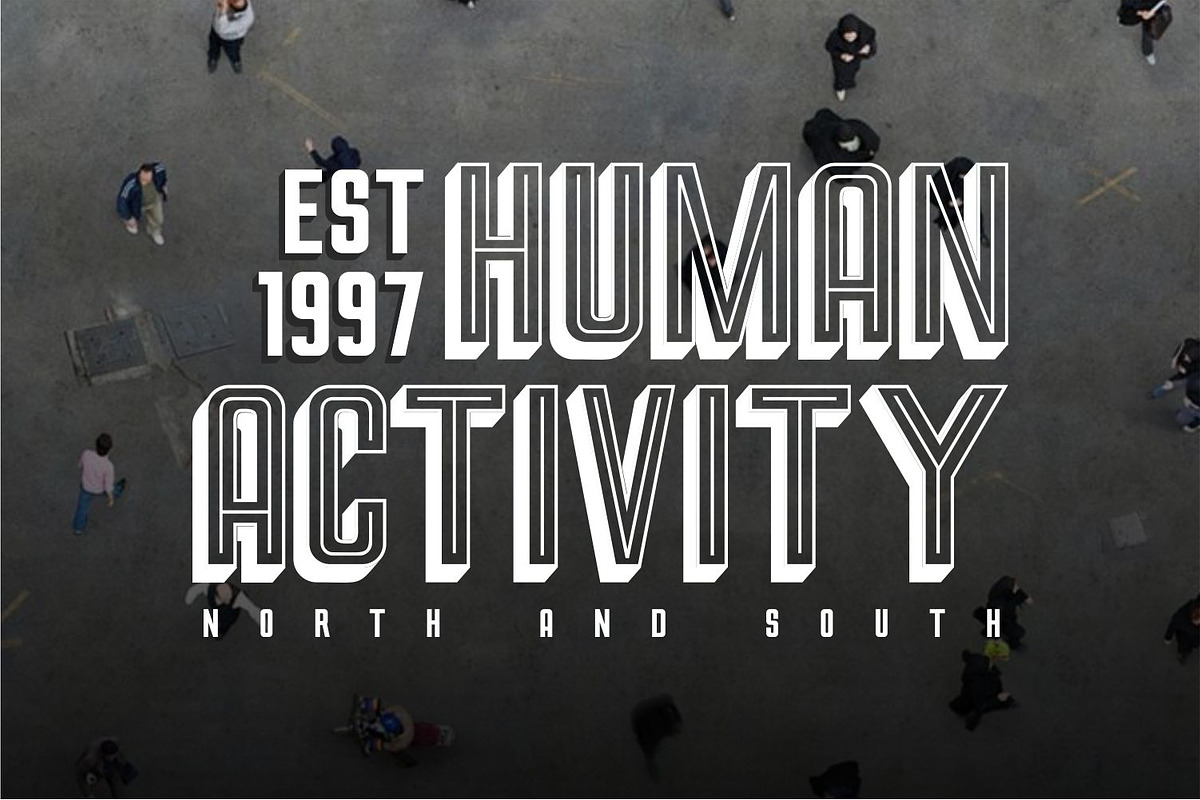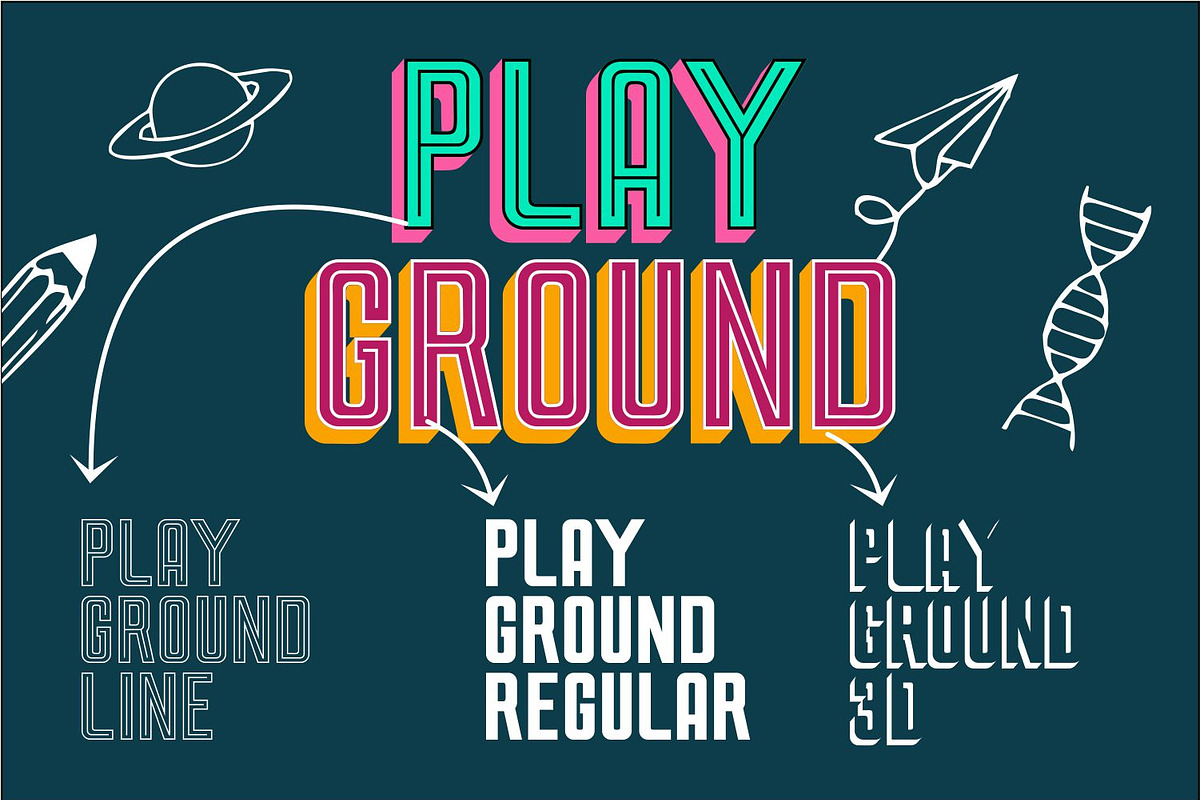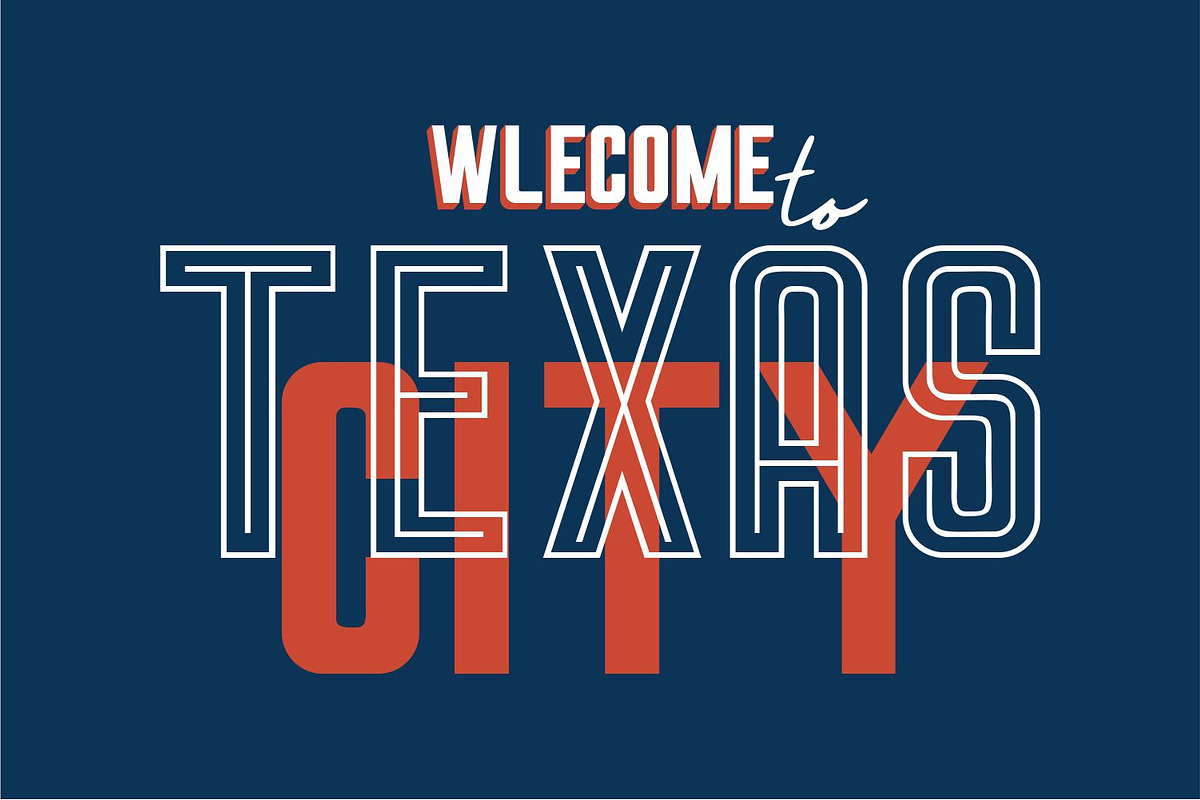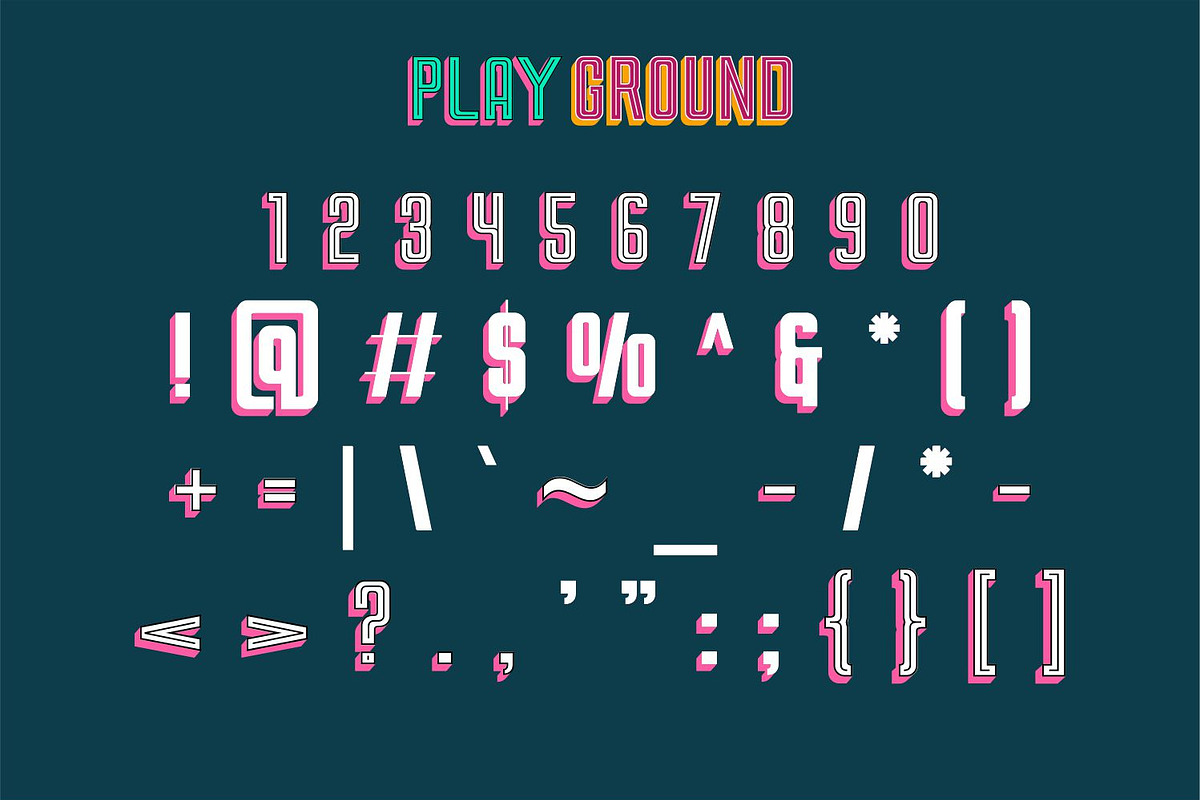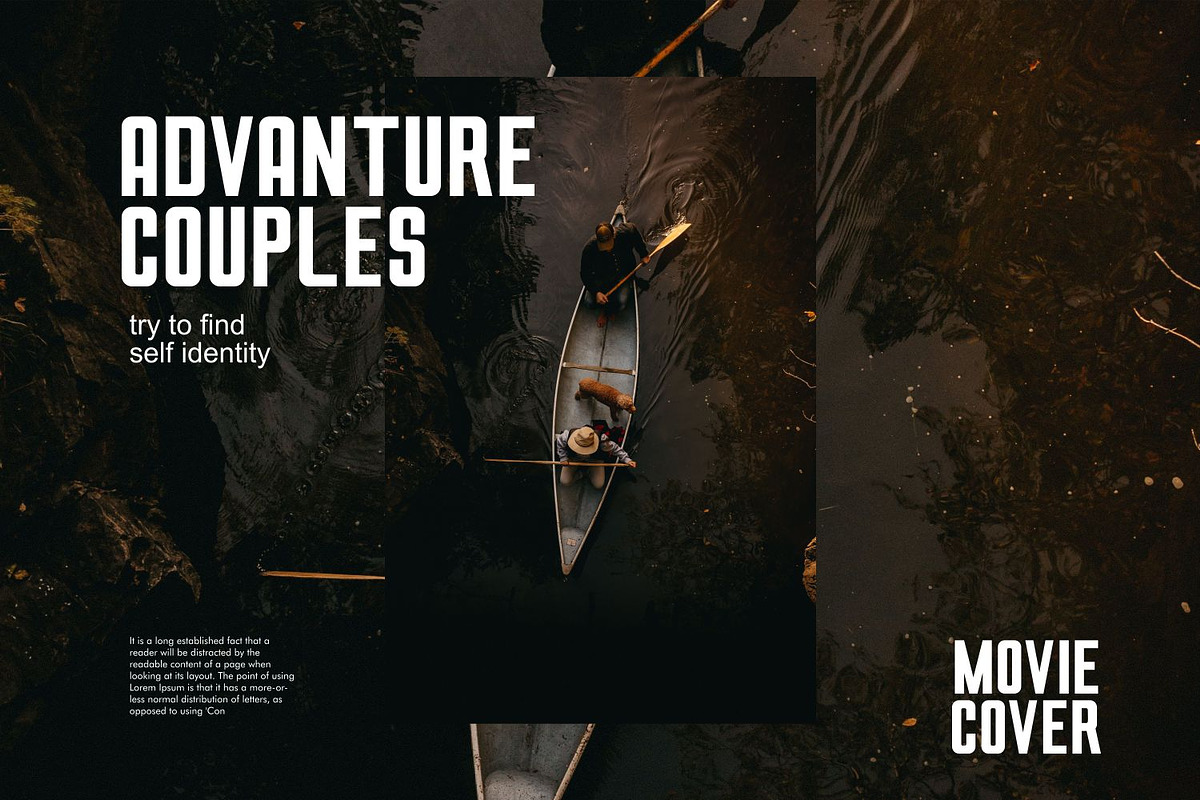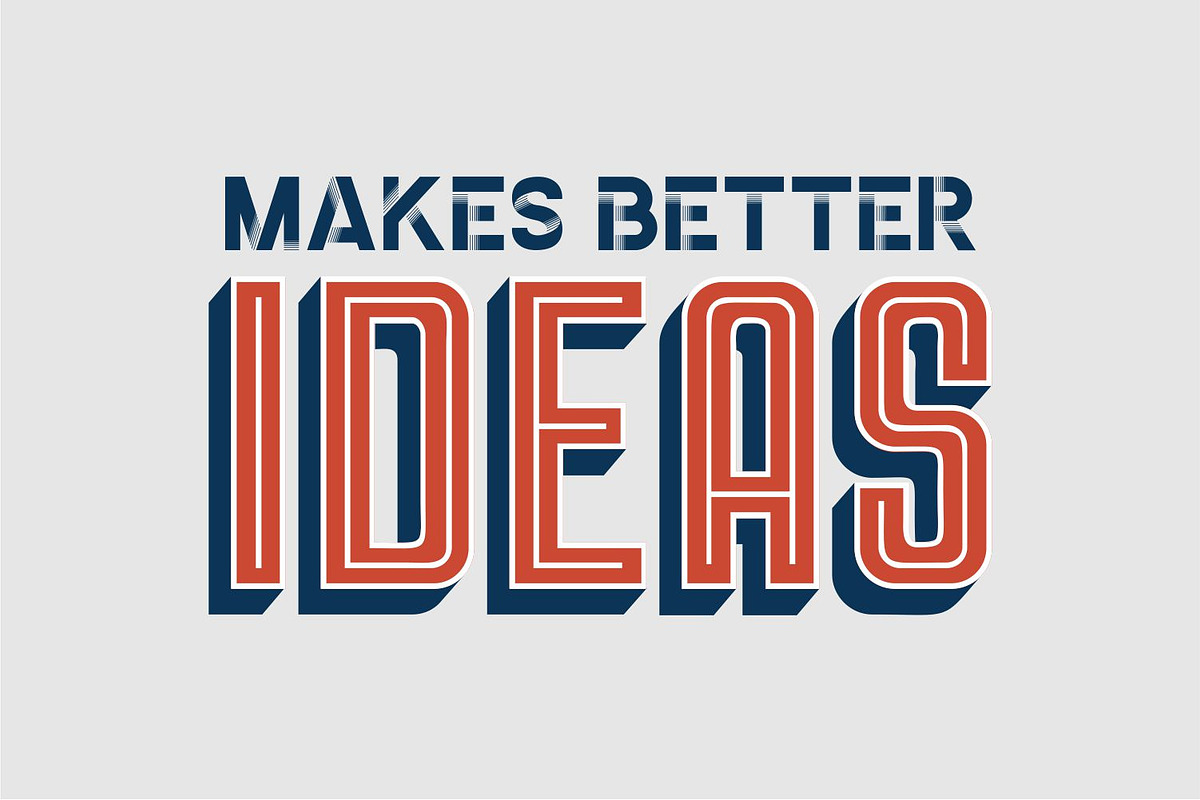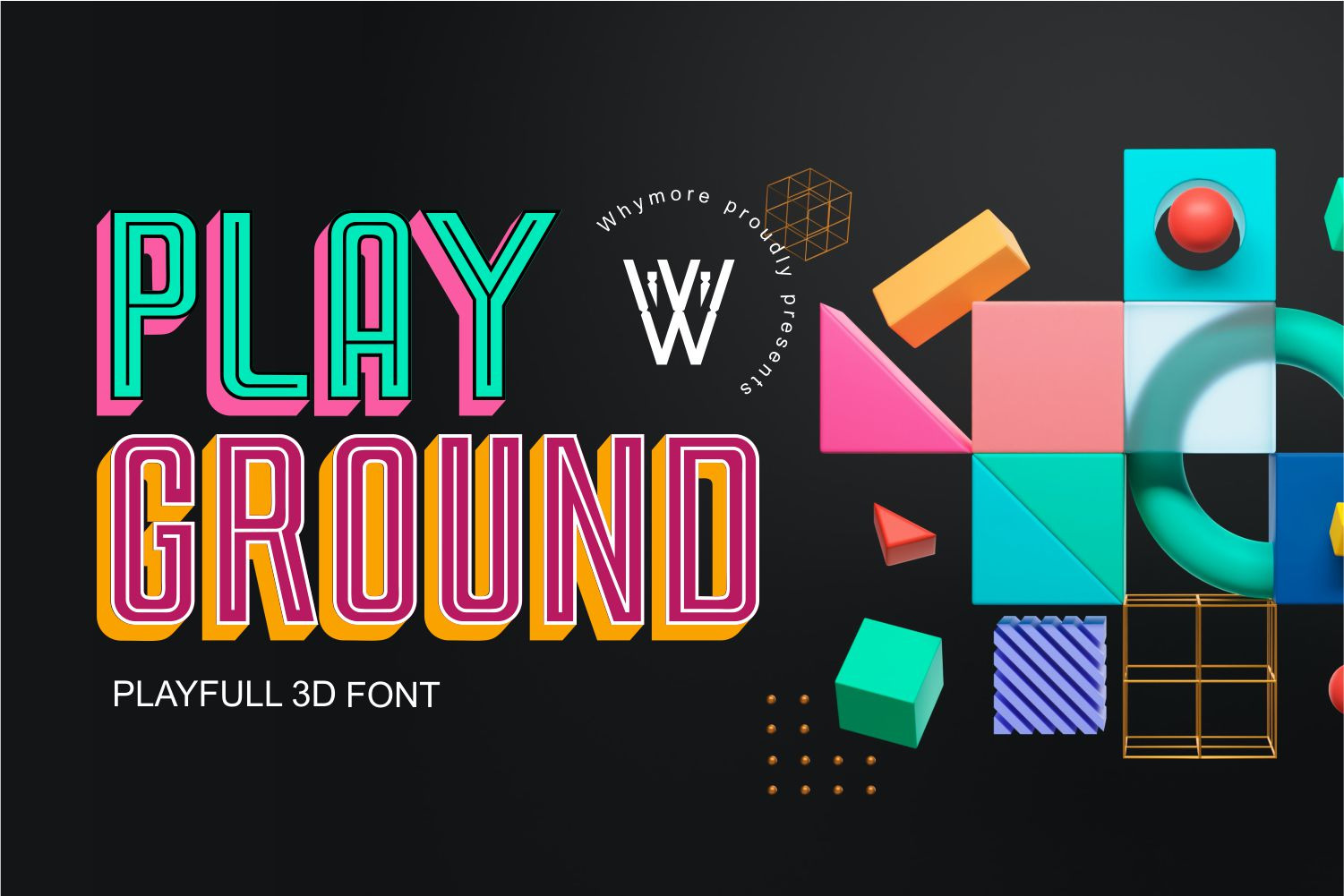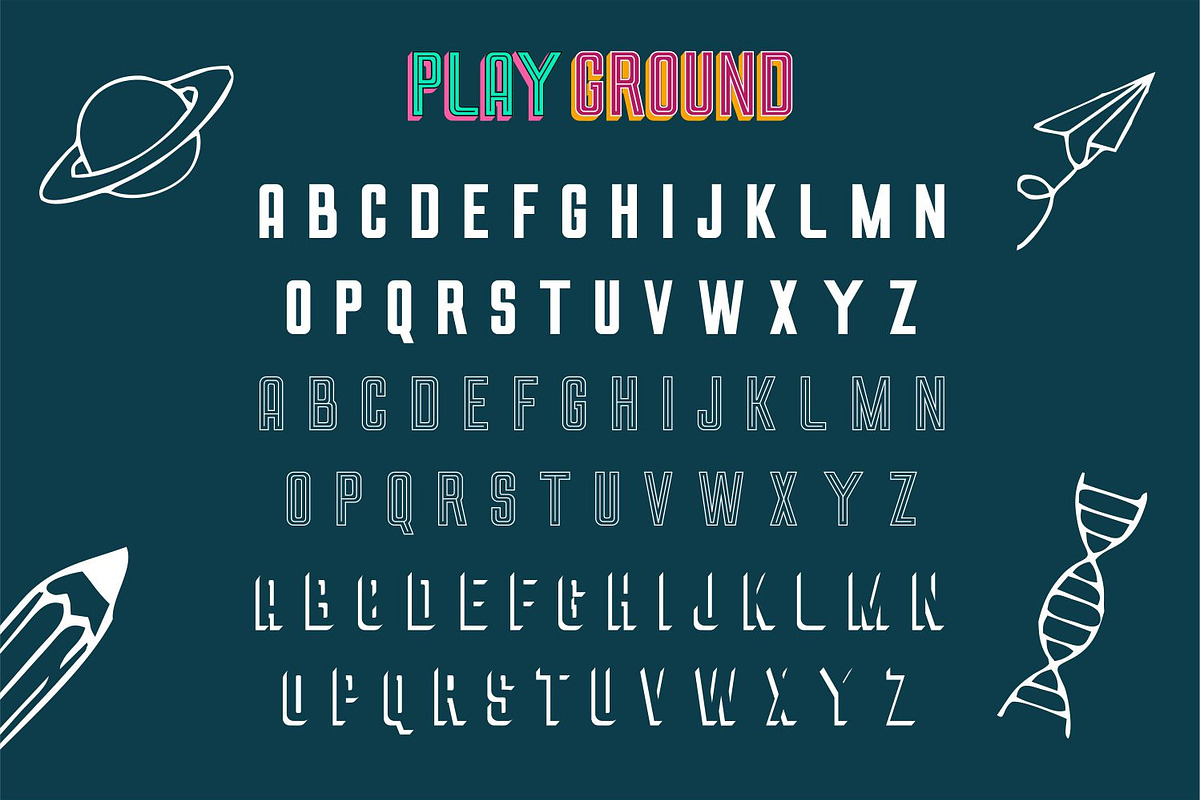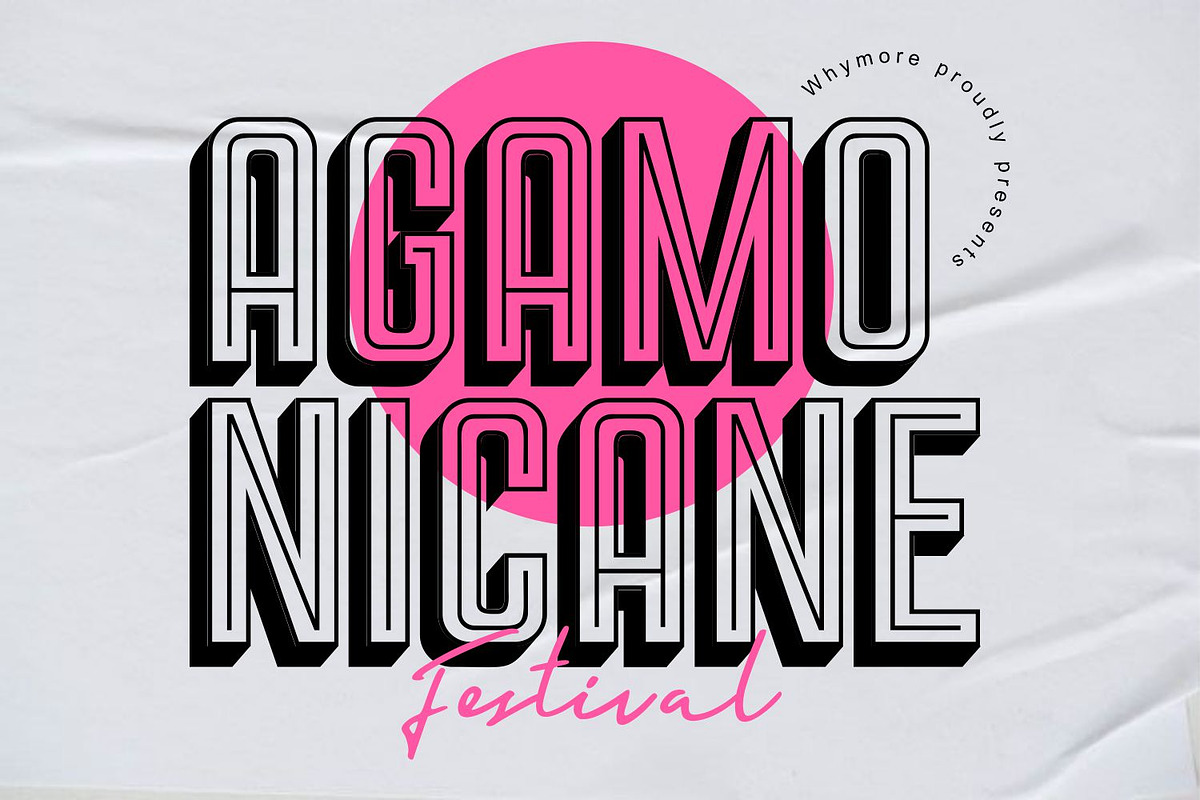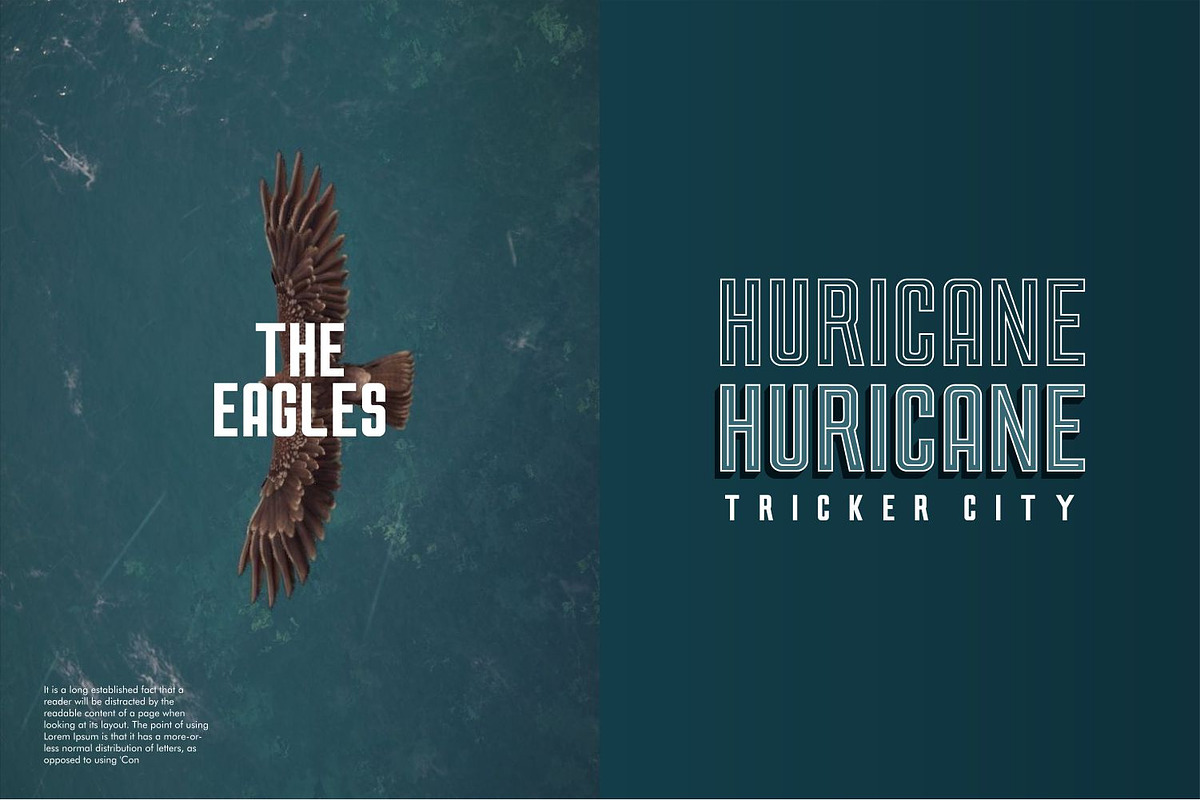
Play Ground Font | 3D Font
The Play Ground Font is a captivating 3D typeface that adds depth and dimension to your designs with its dynamic and playful style. Inspired by the world of playful creativity, this font features bold letterforms and vibrant colors that pop off the page, creating an eye-catching visual impact. Whether you’re designing for children’s products, event posters, or branding materials, the Play Ground Font brings a sense of fun and excitement that captivates the viewer. Its versatile nature makes it perfect for adding a touch of whimsy and creativity to any project.